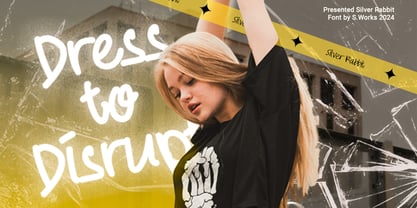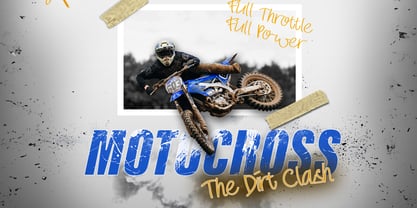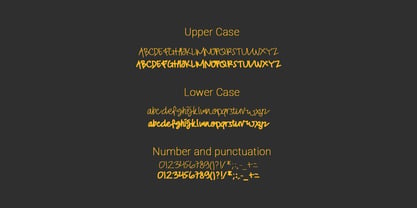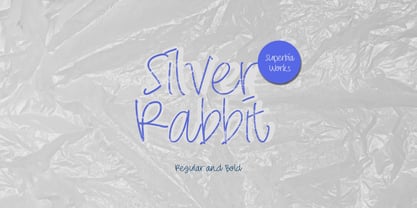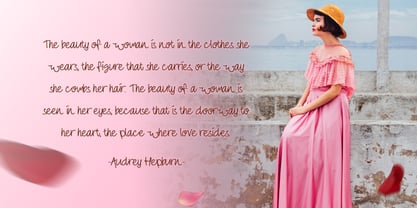
Silver Rabbit
by Superbia Works
The Silver Rabbit Font Family was designed by Tedy Rendra and published by Superbia Works. Silver Rabbit contains 2 styles and family package options.
✨ Handcrafted with Heart: Silver Rabbit is more than just a font – it’s an expression of individuality. Each character is carefully drawn by hand to capture an authentic, free-spirited style, giving your designs a touch of personality and warmth.
🎨 Unleash Your Creativity: With Silver Rabbit, bring a playful, handwritten charm to your projects. It's organic flow and casual elegance add the perfect flair to logos, packaging, social media posts, or any project that needs a creative lift.
💫 Memorable and Distinct: Every stroke in Silver Rabbit is designed to make an impact. Its unique handwritten quality stands out and leaves a lasting impression, perfect for designs that need to feel personal and engaging.
🌍 Express Without Boundaries: While Silver Rabbit doesn’t support multilingual characters, its warm and inviting style transcends language – ideal for any setting where creativity and charm are the focal points.
✨ See Your Ideas Come Alive: Silver Rabbit turns simple text into visual art. Each letter flows naturally, bringing depth and character that make your designs feel handmade and special.
Experience the charm of handwritten design—experience Silver Rabbit.